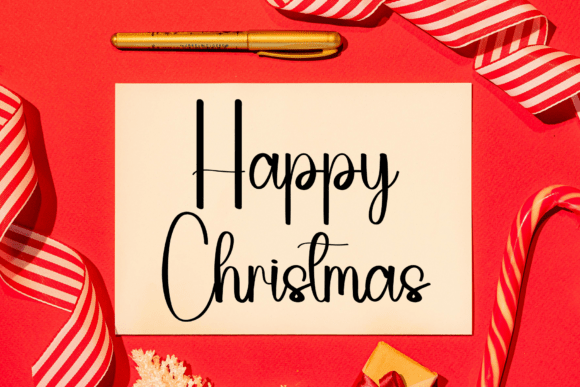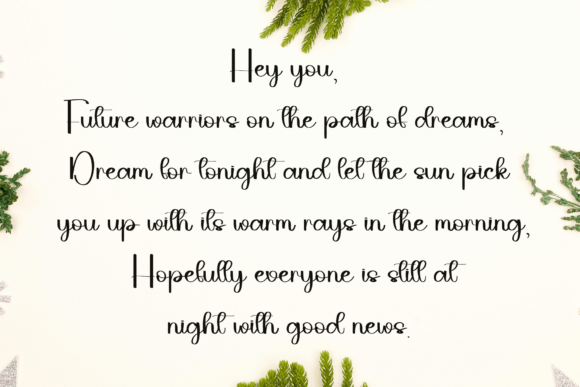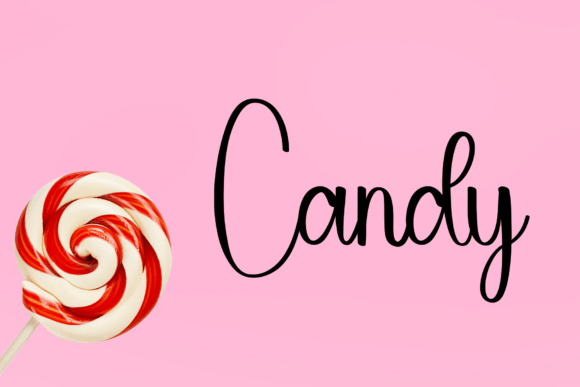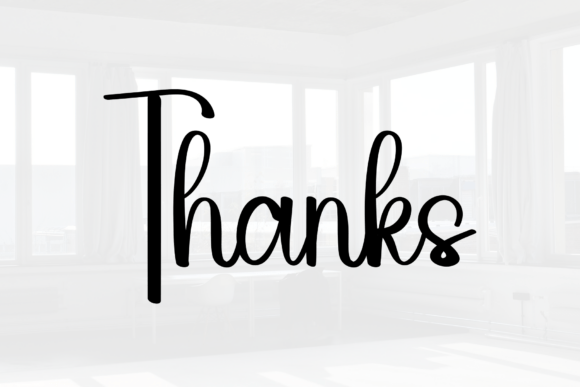
The Sweet Charm of February Schools Font: A Designer’s Delight
I’ll never forget the time I was working on a project for a cozy little bookstore. I was tasked with creating a whimsical poster that captured the essence of their brand. As I scrolled through font after font, nothing seemed quite right. That was until I stumbled upon February Schools Font. Its sweet, handwritten charm instantly transported me to a world of storybooks and warm afternoons spent curled up with a good book. In this article, I’ll share my love for February Schools Font, its features, and how you can make the most of it in your designs.
An Honest Review of February Schools Font
- ✨ The characters dance along the baseline, giving it a playful and organic feel.
- ✅ It’s perfect for adding a cozy accent to any design project, from posters to invitations.
- 💫 The font is highly legible, making it suitable for both headings and body text.
- 🎨 It pairs well with a variety of design styles, from rustic to modern.
While February Schools Font is a beautiful addition to any design, there are a few things to keep in mind:
- ⚠️ The font may not be suitable for very large or very small text sizes, as some details may get lost.
- 🤔 It can be a bit tricky to pair with very bold or sans-serif fonts, so experimentation is key.
- Experiment with the font’s OpenType features, such as stylistic alternates, to add some personality to your text.
- Use the font’s stylistic alternates and glyphs to add some visual interest to your text.
The Story Behind February Schools Font
February Schools Font was designed with the intention of capturing the warmth and coziness of handwritten text. The designer, inspired by the charm of vintage schoolhouse signs, created a font that would evoke feelings of nostalgia and comfort. With its dancing characters and sweet, cursive script, February Schools Font is sure to become a favorite in your design arsenal.
A: February Schools Font is versatile and can be used for a variety of design projects, from posters and invitations to social media graphics and blog posts.
Q: Is February Schools Font difficult to read?
A: No, February Schools Font is highly legible, making it suitable for both headings and body text.